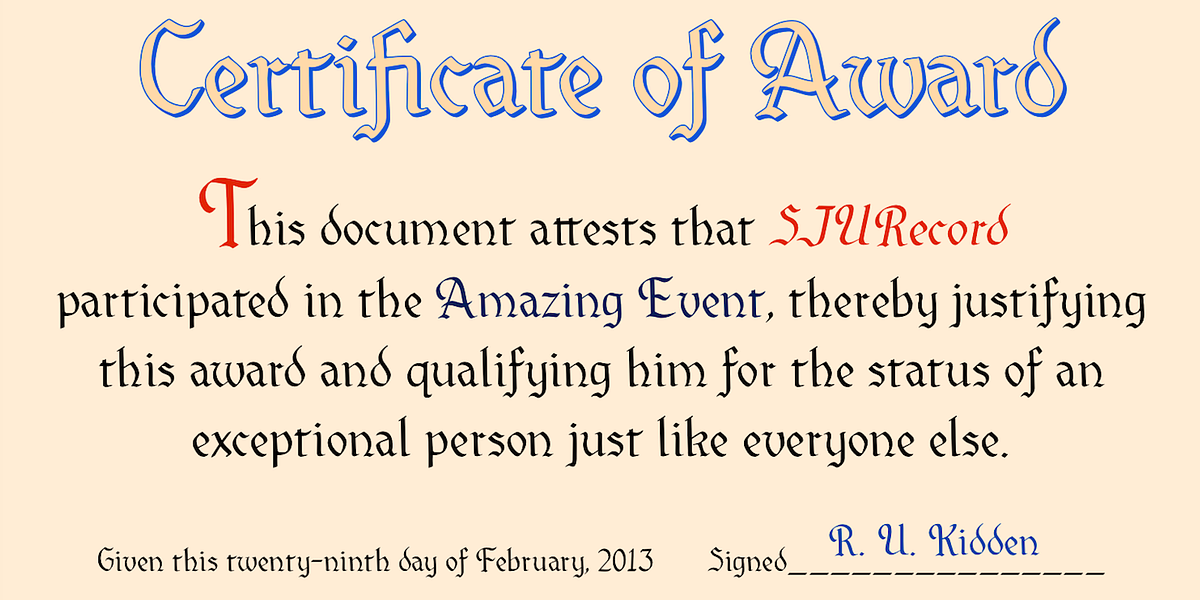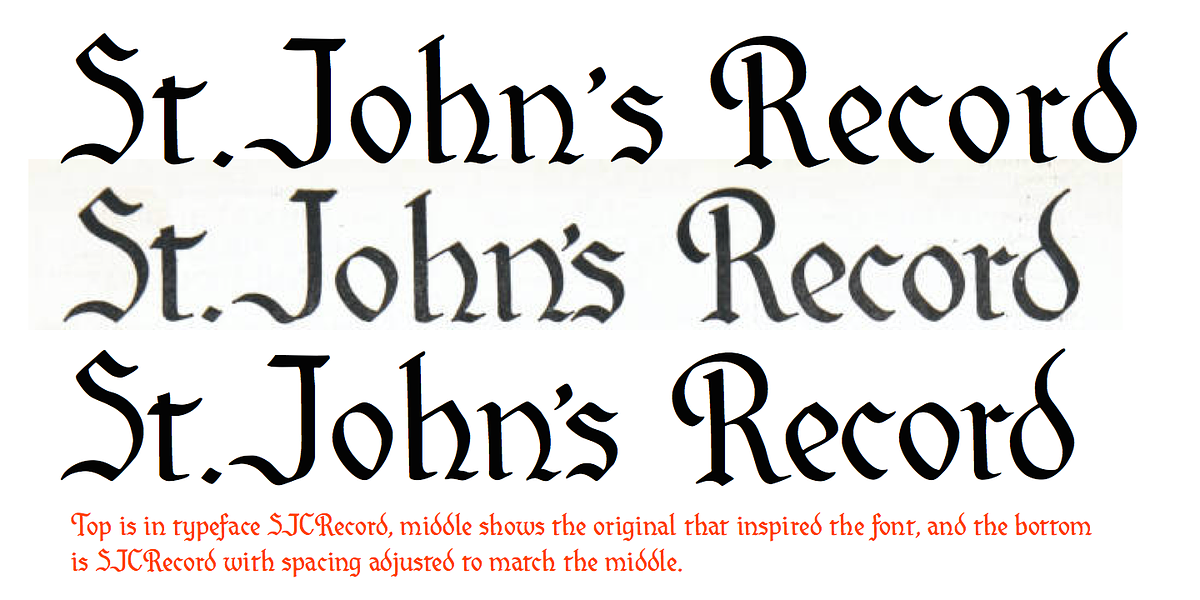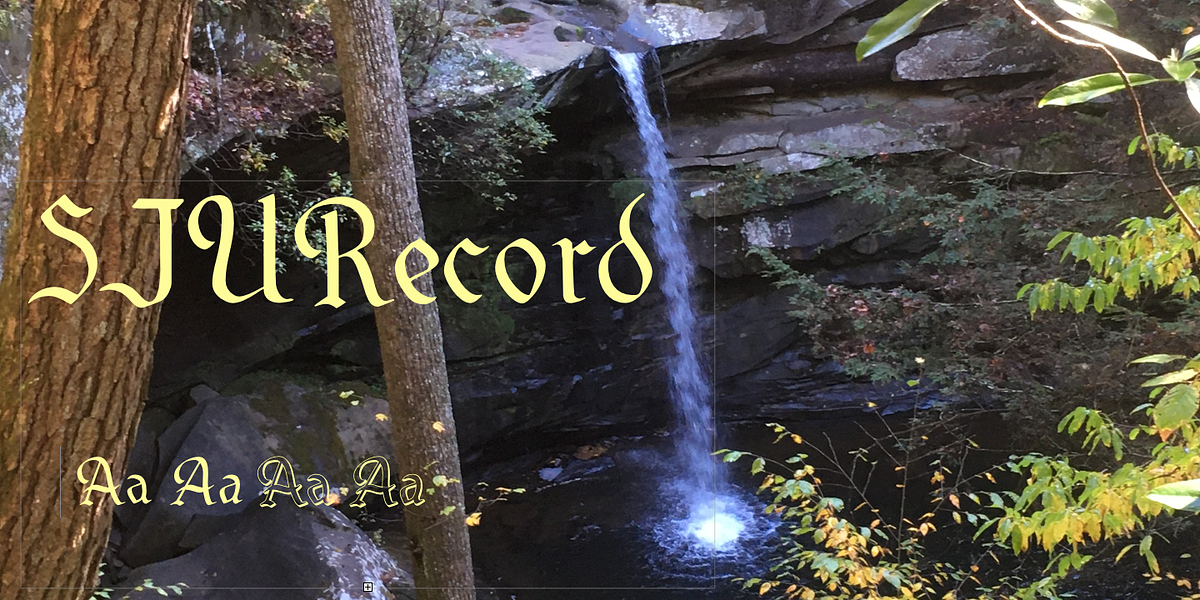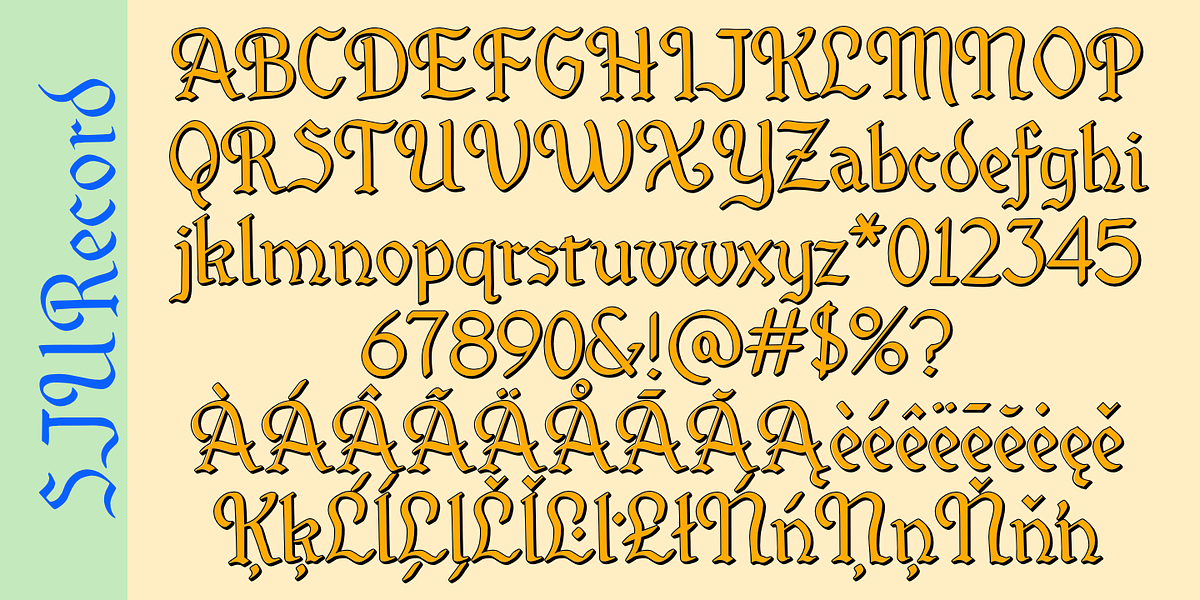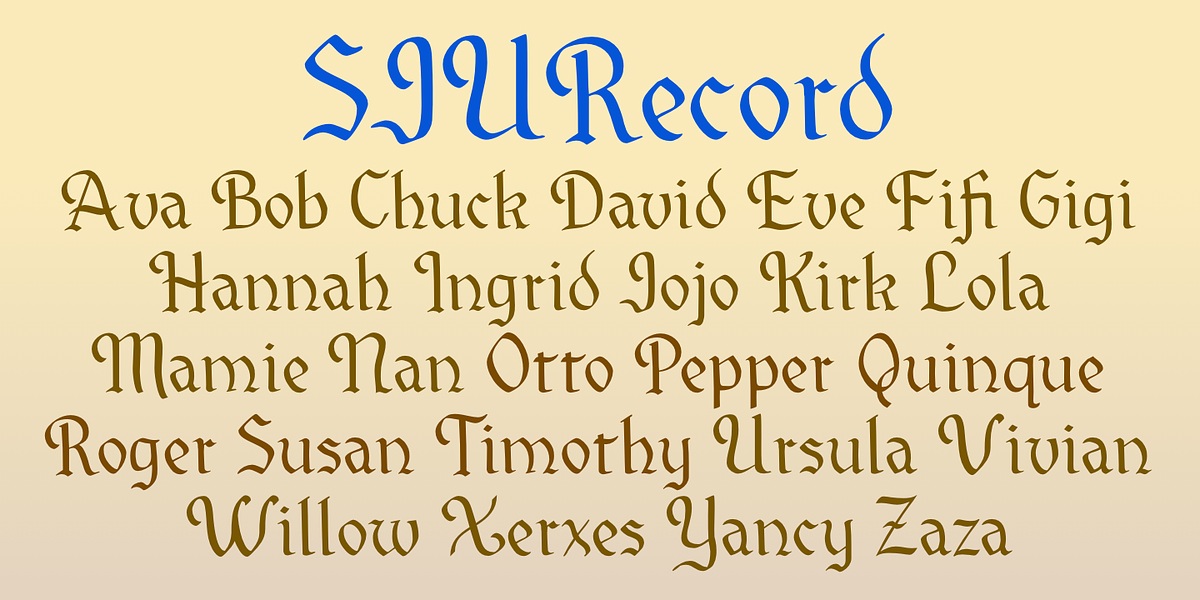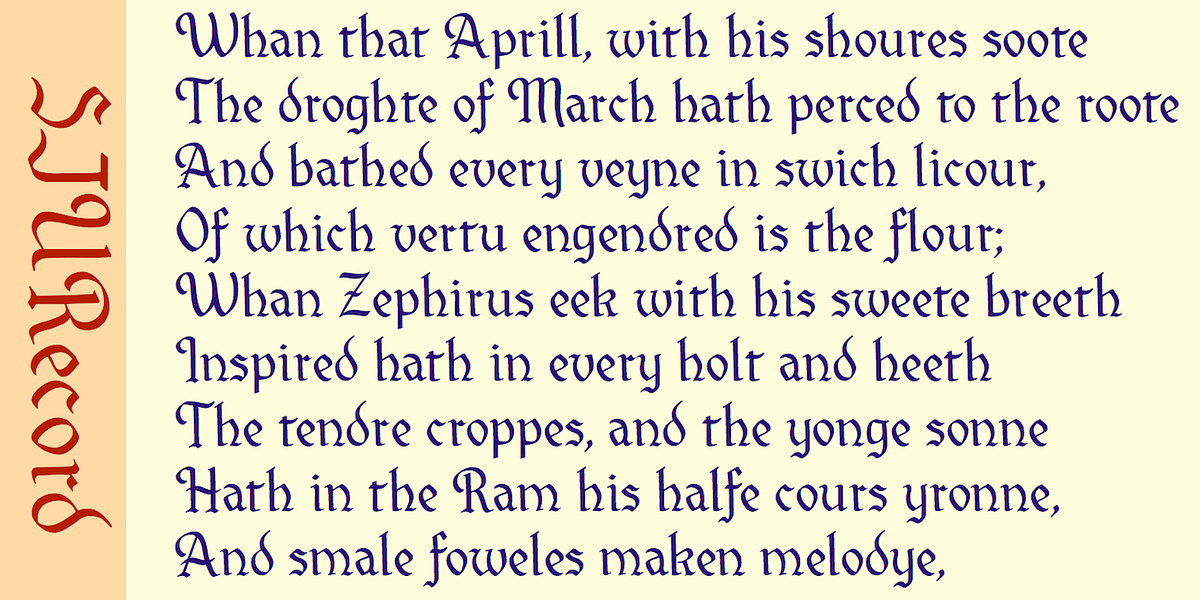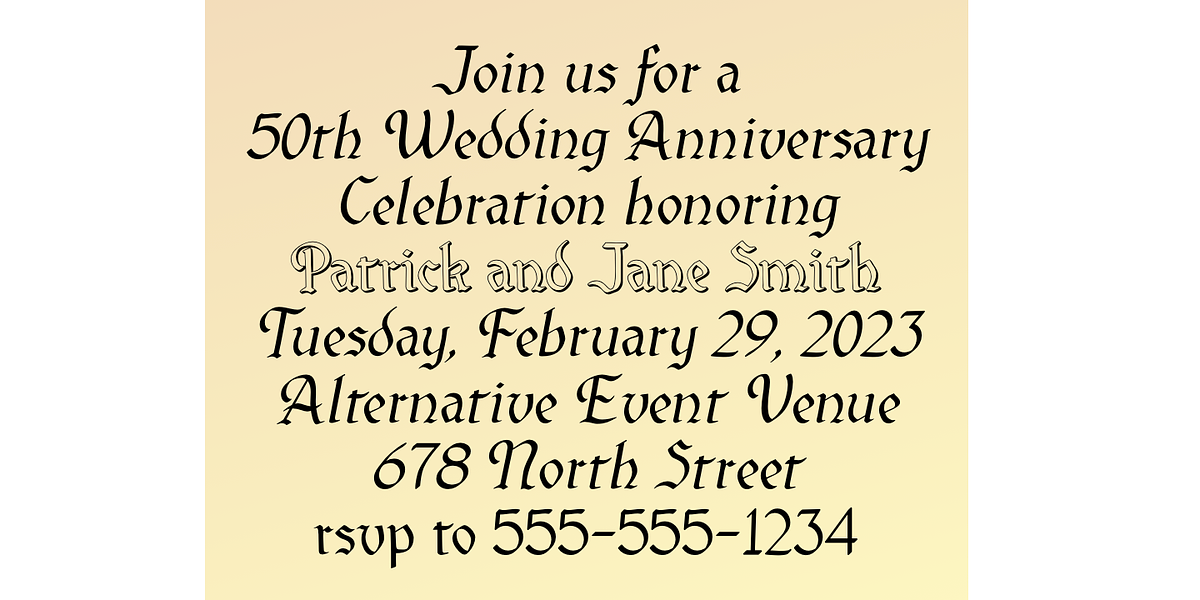
SJURecord
SJURecord is a calligraphic blackletter typeface inspired by the lettering used for the title of the St. John’s Record student newspaper in the late 1920s and early 1930s. The font features a shadowed style and includes alternate characters for several letters.